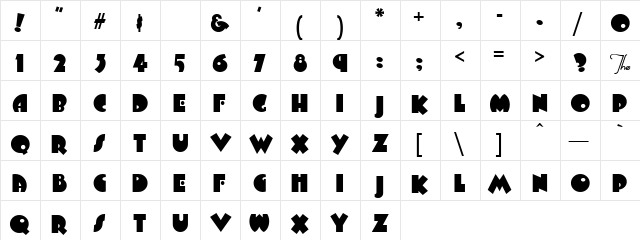
Atomicas U Regular
Design Context for Atomicas U Typeface
Atomicas U is a composed and adaptable typeface that performs quietly and consistently across a wide range of design contexts.